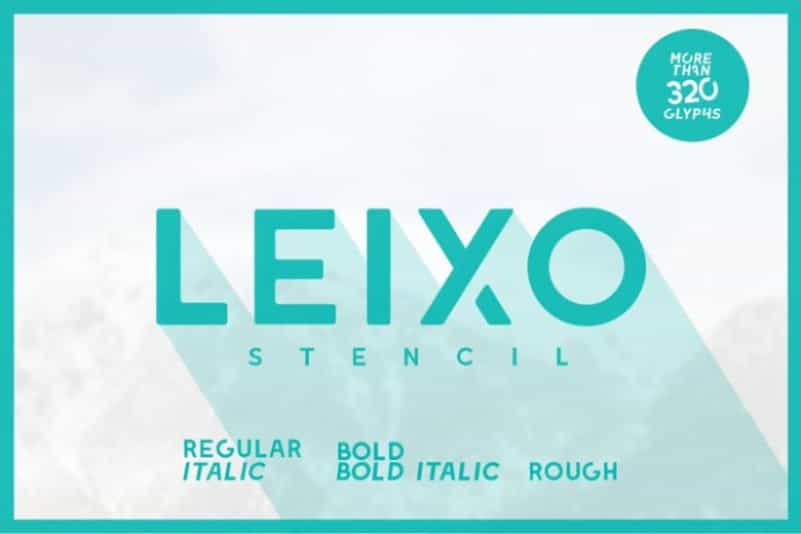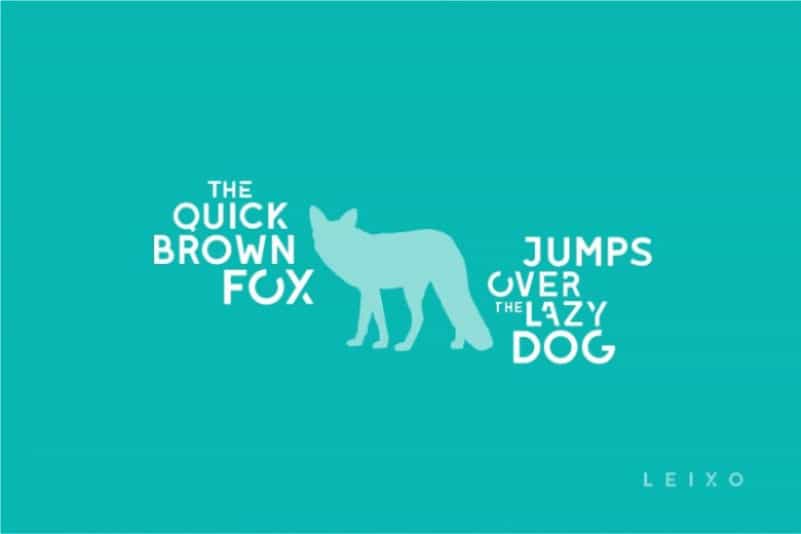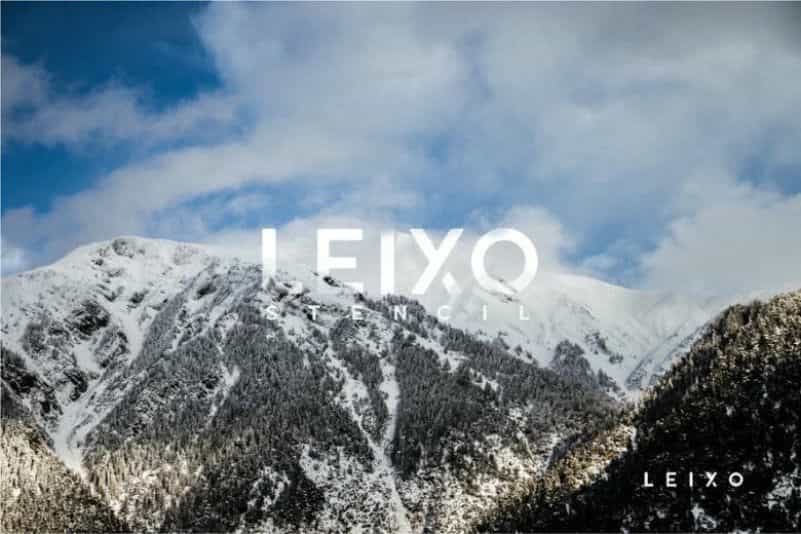
Discover Leixo Stencil Typeface, part of the Sans Serif Display Stencil Army collection—a versatile and unique font perfect for adding a personal touch to your projects. Download it for free and enjoy crafting designs with style, from invitations to social media posts. This font is available exclusively for personal use, giving you the freedom to create without limits. Unlock your creativity with Leixo Stencil Typeface today!
Behold the Leixo Font! This font was in fact a modern version of classic typefaces from old times but it got the contemporary look after getting rid of all unnecessary details. It is created and published by phitradesign fonts. Leixo is a sophisticated stencil which has many functions.